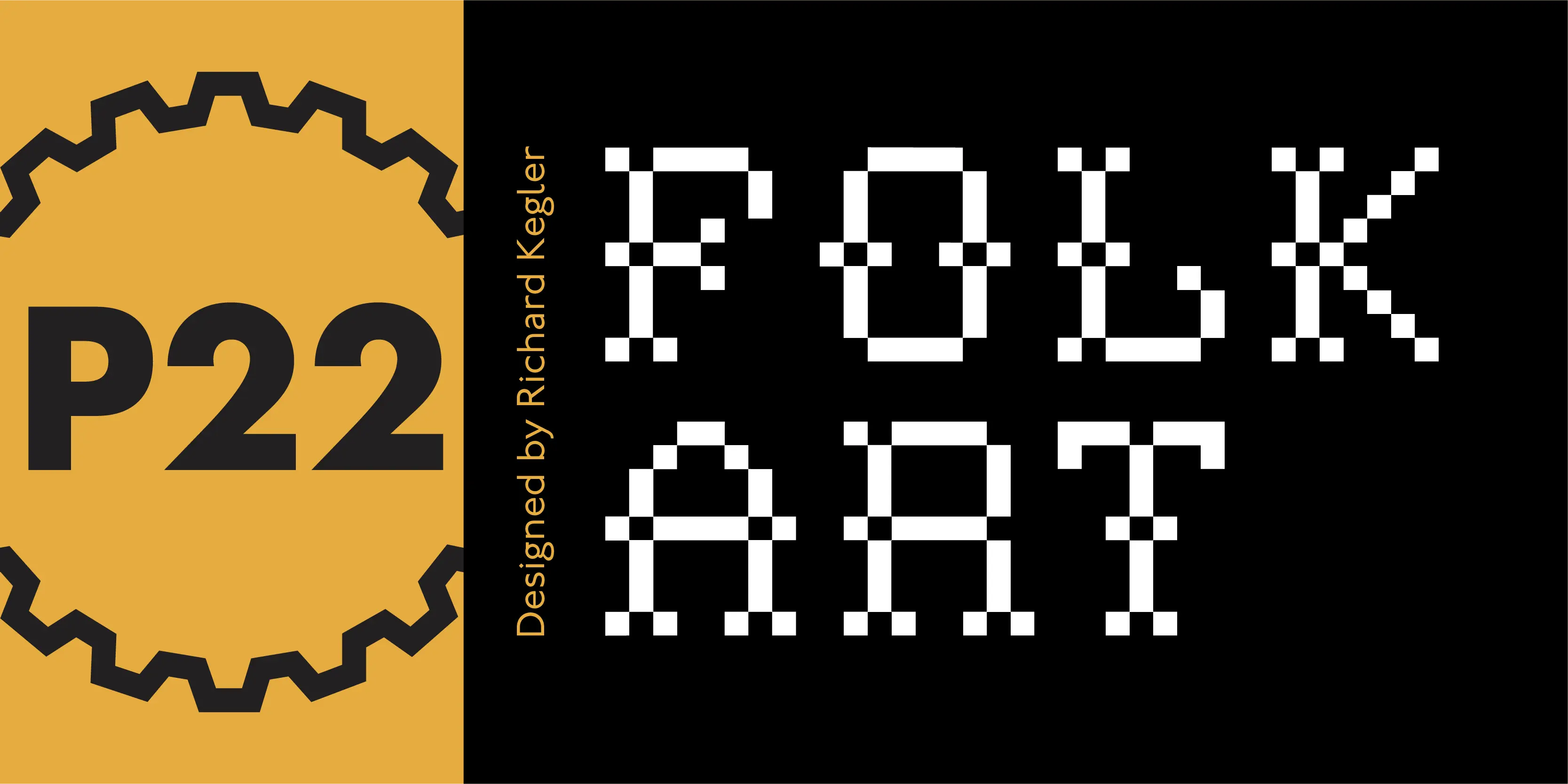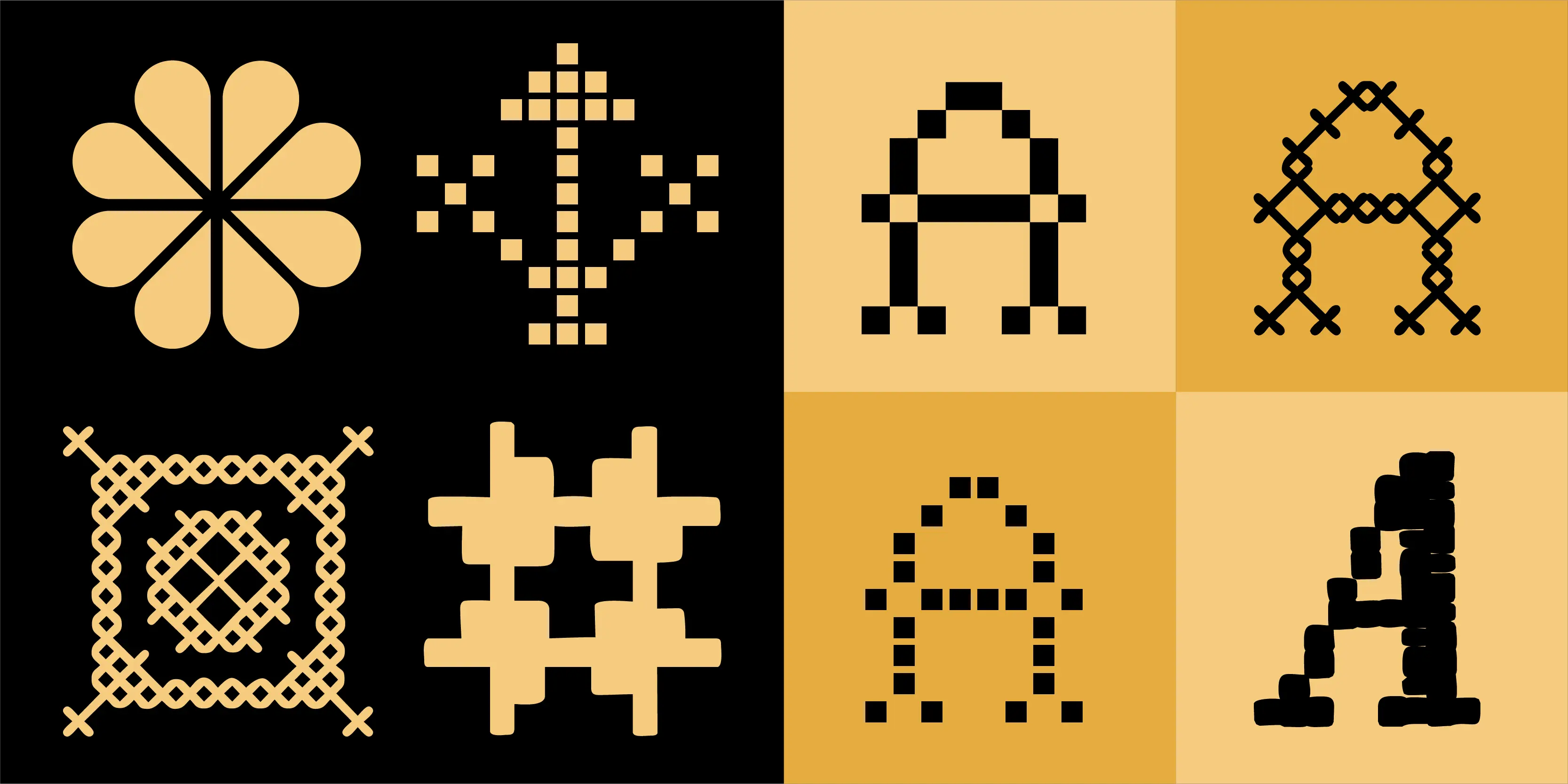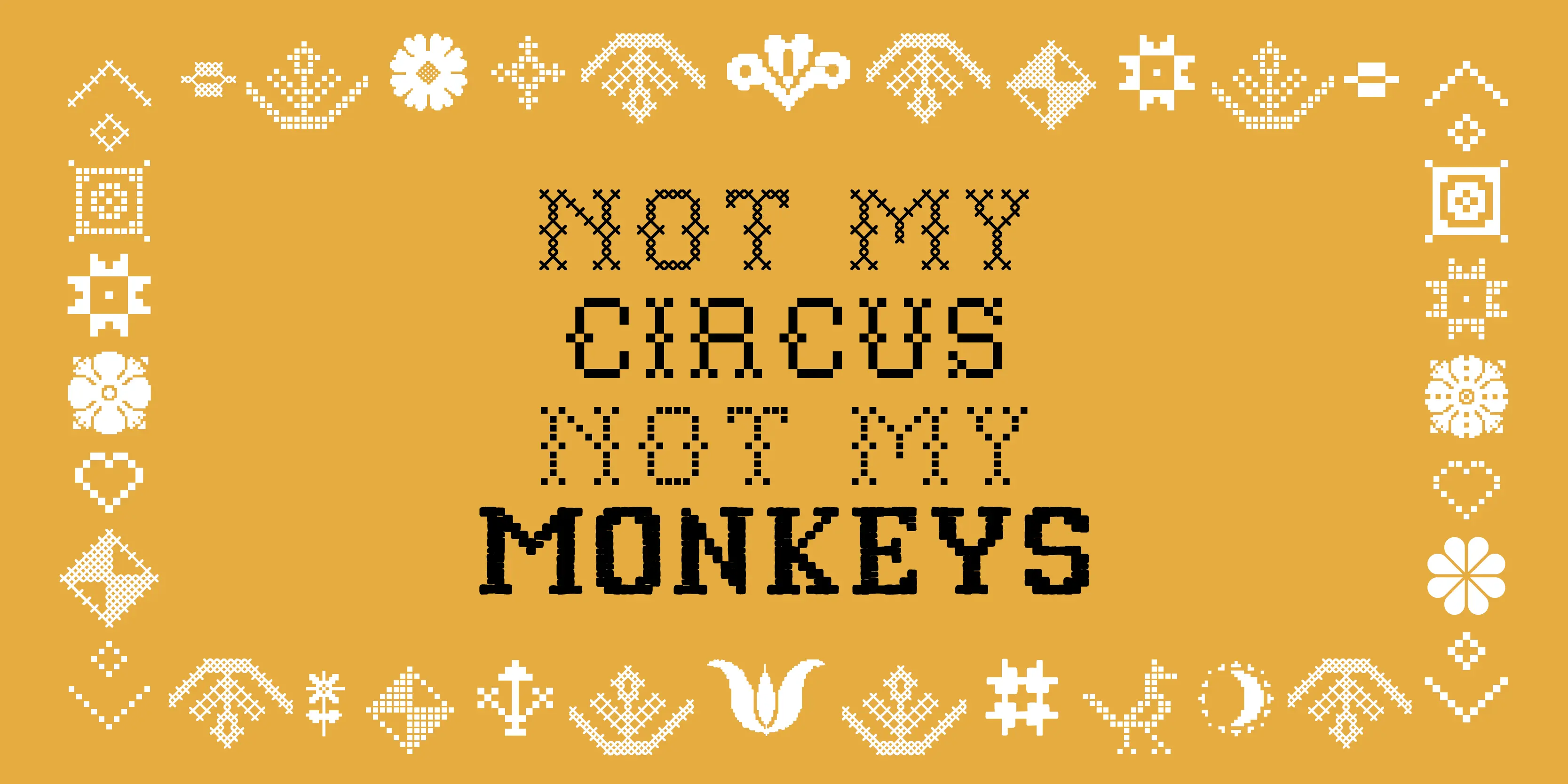
Folk Art Font Family
• Folk Art Block
• Folk Art Cross
• Folk Art Square
• Folk Art Stitch
• Folk Art Extras
Folk Art
Primarily based on the work of German settlers in Pennsylvania, the Folk Art collection showcases a variety of needlework and folk art styles of the early United States. Produced in conjunction with the Philadelphia Museum of Art, this set is a digital recreation of homespun Americana.